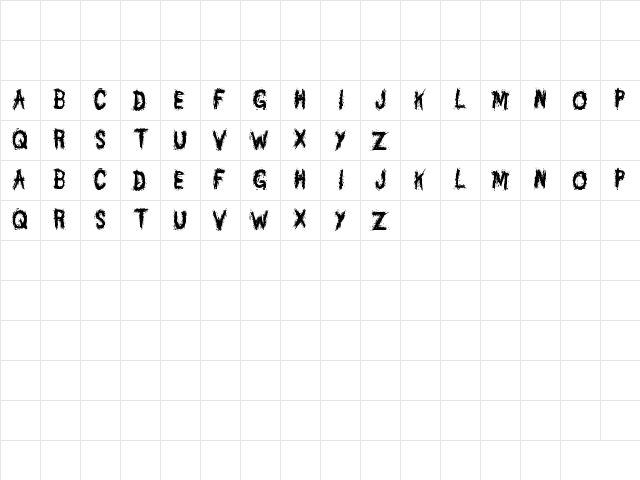
DANNY VAREFELLA Regular
Designer: Danny Carbury
Design Context for DANNY VAREFELLA
DANNY VAREFELLA is a composed and adaptable typeface that performs quietly and consistently across a wide range of design contexts.